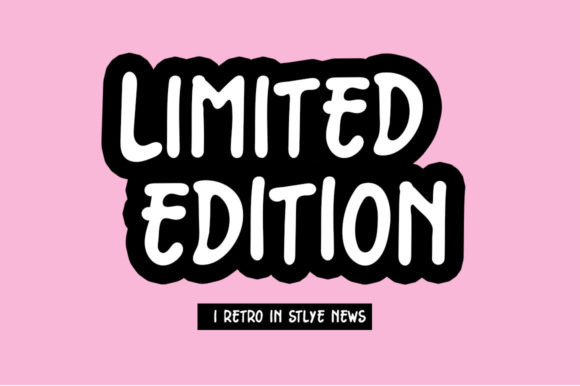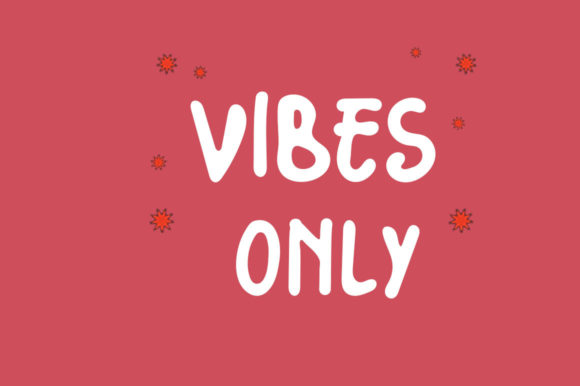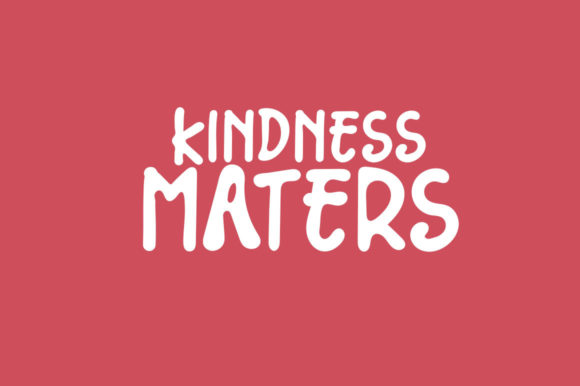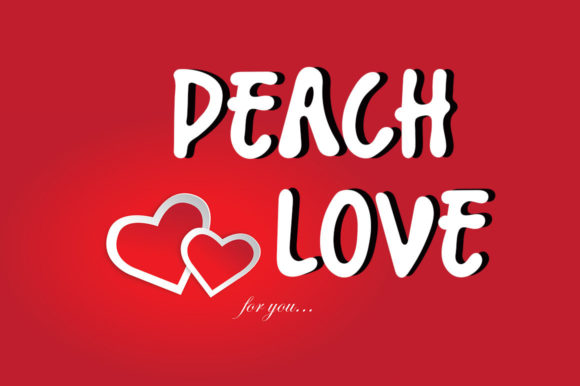
Limited Edition Font
About Limited Edition Font
Limited Edition is a retro font that offers various styles to enhance your vintage design projects. This versatile font includes a regular solid version, and its different styles can be layered together to create a customized and unique appearance. Limited Edition is well-suited for a range of design applications, including branding, logos, social media quotes, stickers, posters, vintage designs, wall art, and more.
The regular solid version of Limited Edition provides a strong and consistent foundation for your text. This base font ensures readability and can serve as a standalone option for a clean and classic look.
The option to layer different styles of Limited Edition allows for creative and dynamic typography. By combining these styles, you can achieve a textured and retro effect, adding depth and visual interest to your designs. This layering feature makes Limited Edition a versatile choice for creating eye-catching and personalized visuals.
In branding and logo design, Limited Edition’s retro aesthetic adds a nostalgic and distinctive touch. The font’s ability to evoke a vintage vibe makes it suitable for businesses or projects aiming for a classic and timeless identity.
For social media quotes, stickers, and posters, Limited Edition’s retro styles can make your text stand out and capture attention. The font’s unique character lends itself well to creating memorable and visually appealing content for various platforms.
In vintage designs and wall art, Limited Edition can contribute to an authentic and nostalgic atmosphere. Whether used for decorative text, signage, or other design elements, the font brings a retro flair that complements vintage aesthetics.
In summary, Limited Edition is more than just a font; it’s a versatile retro font with layering styles that allow you to create a range of vintage-inspired designs. Whether applied to branding, social media, posters, or other visual contexts, Limited Edition adds a unique and nostalgic touch to your typographic compositions, making them memorable and engaging.